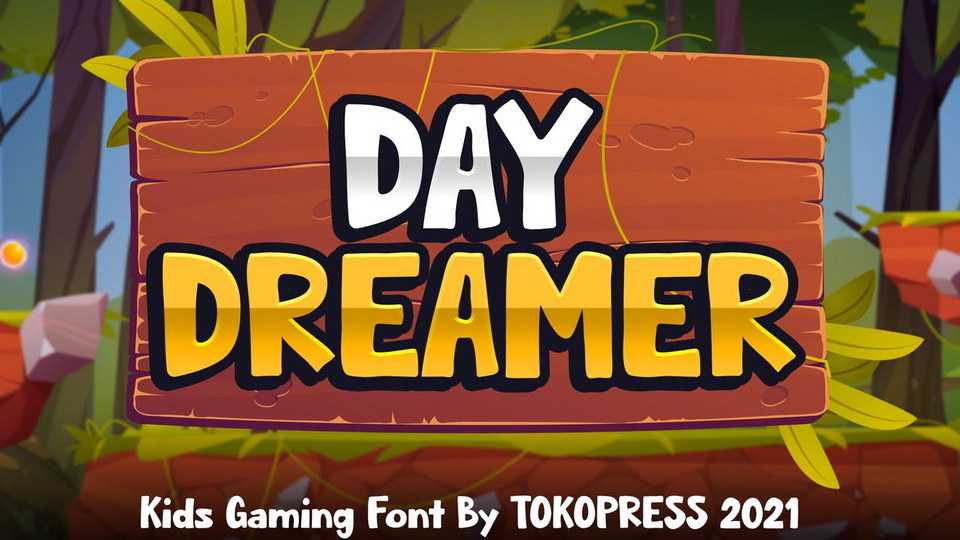
Download Daydreamer font, a kids gaming typeface. Fun and all about gaming adventure with Daydreamer. Suit perfectly for gaming market audiences, poster, movie title and so on…